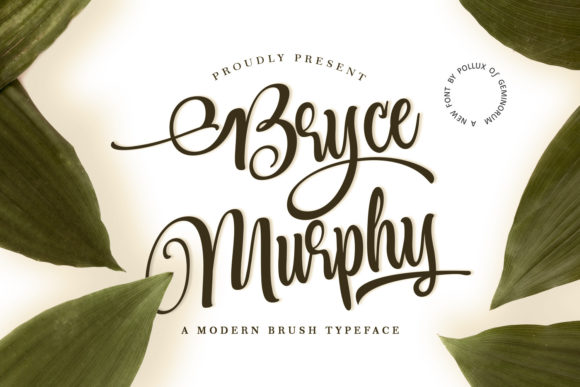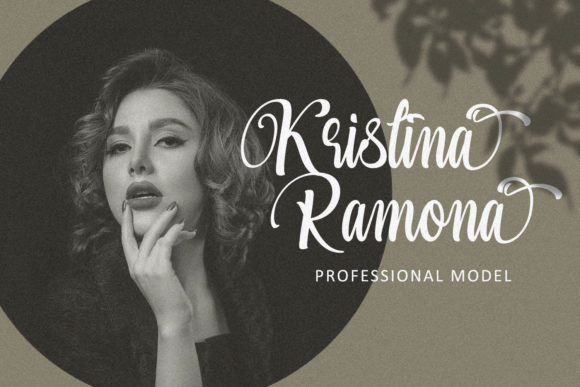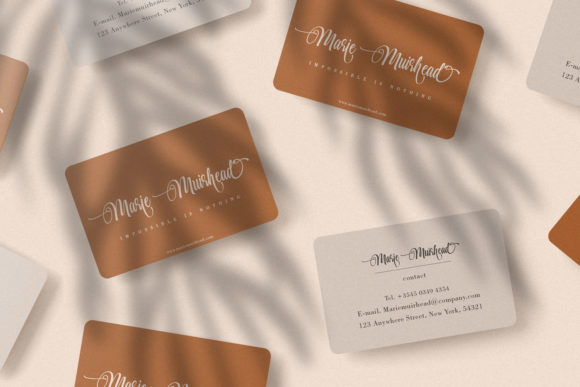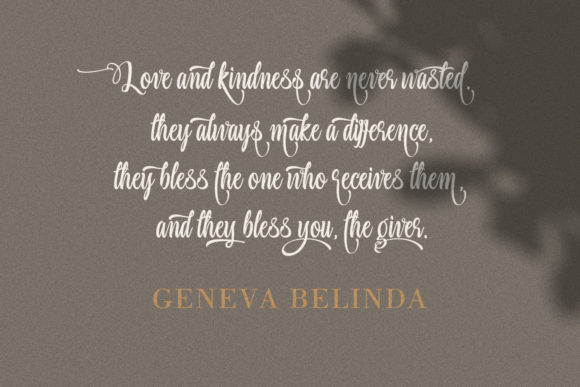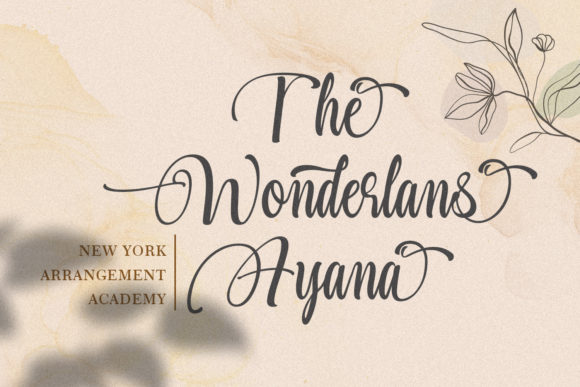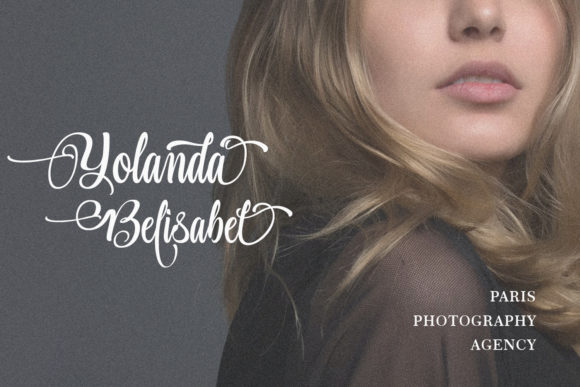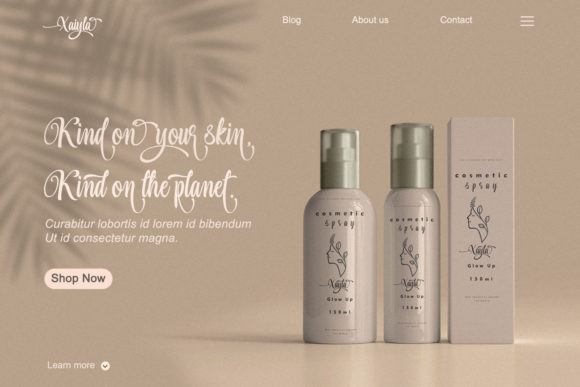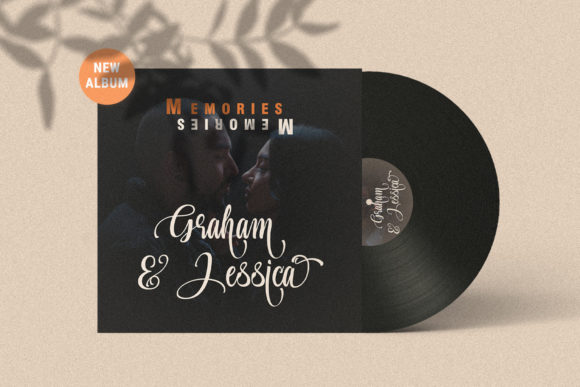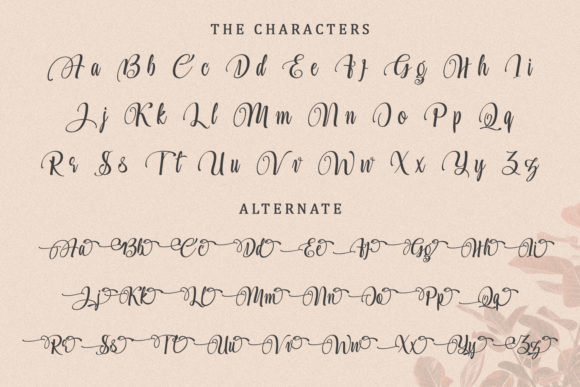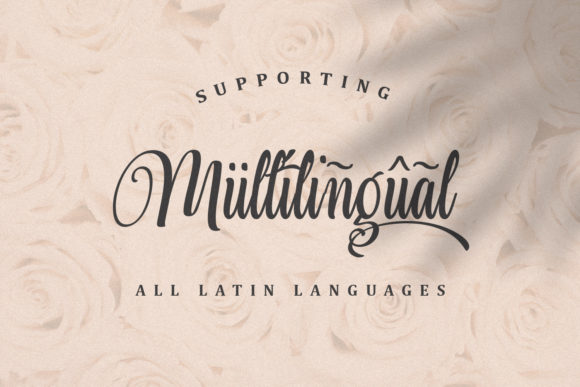
About Bryce Murphy Font
Bryce Murphy is a dainty and highly detailed script font. Add this romantic and lovely looking font to each of your love letters, wedding invitations or favorite design ideas, and you will be astounded by the outcome.Â